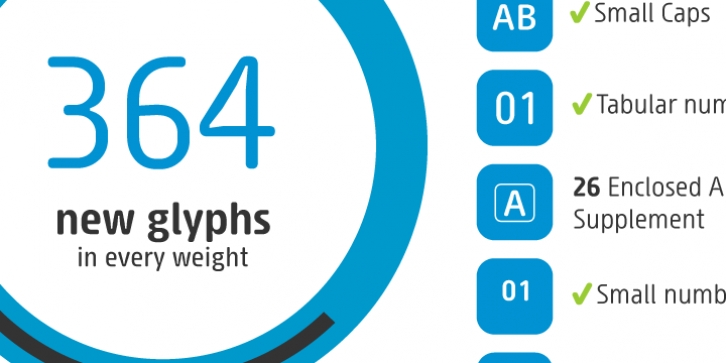
Sys 2.0 was designed by Fabrizio Schiavi and published by FSD. Sys 2.0 contains 8 styles and family package options.
Sys is a condensed font designed to work well at small sizes (i.e. phone books, maps, or the like) but it has enough personality to be used at big sizes, too. The TrueType version, thanks to its incredibly accurate hinting, may be used to replace amazingly well TrueType system fonts in every platforms, in web or other screen applications.
After the succcess by the first version designed ten years ago, the version 2.0 has numerous improvements in the design of the glyphs, new Unicode ranges, useful OpenType features and enhanced readability.